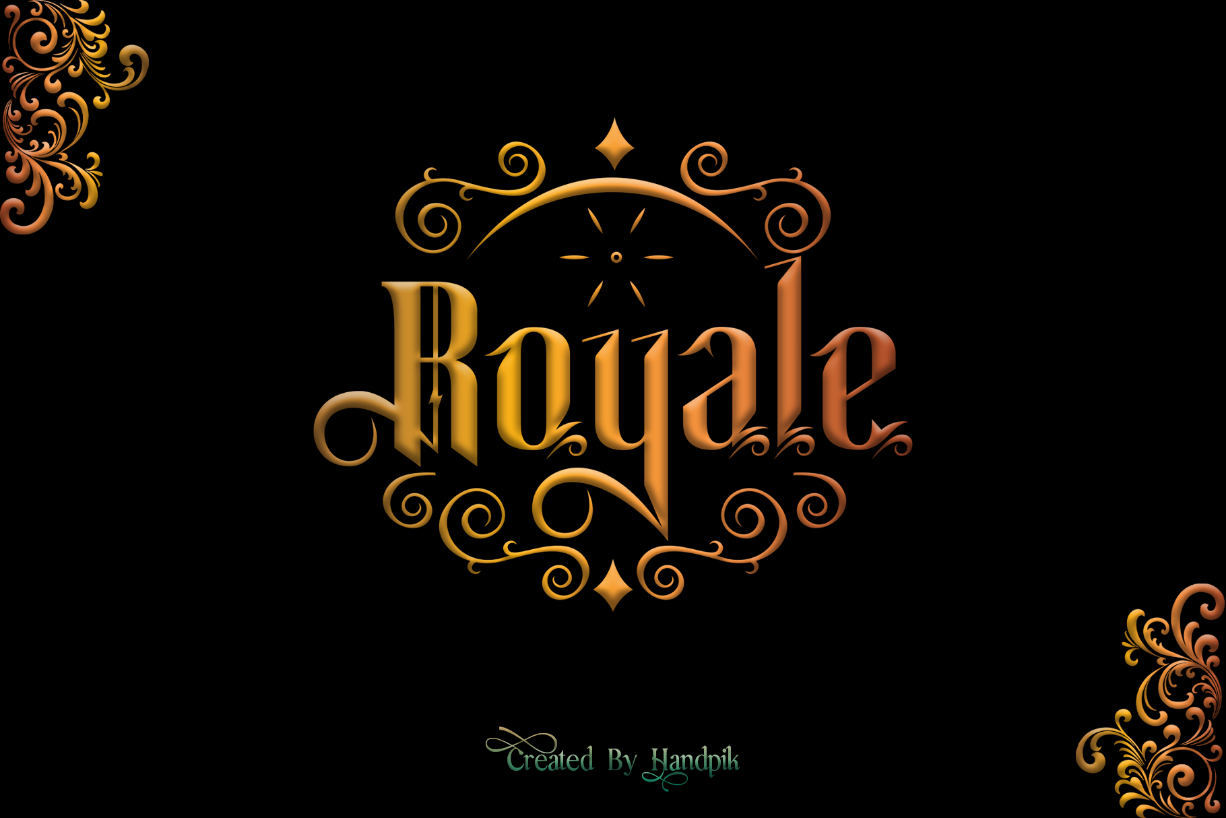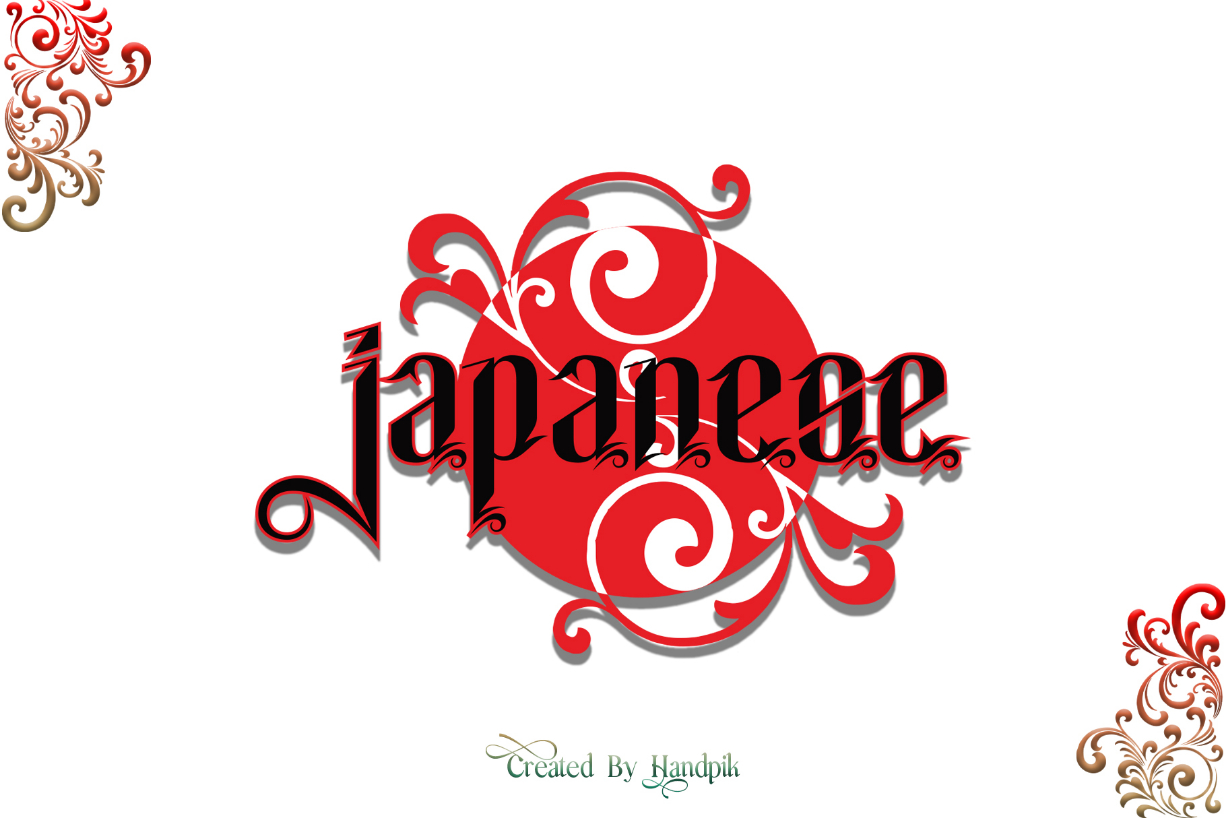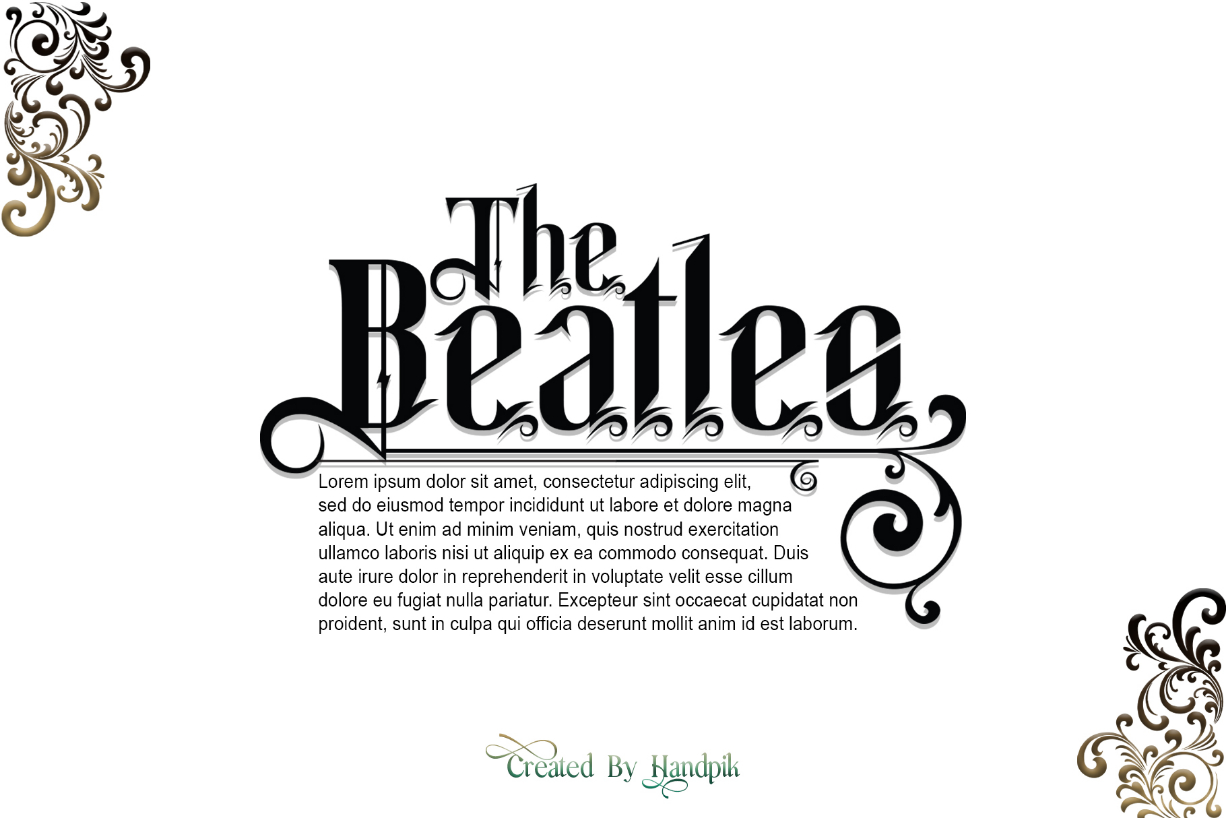
About Tanjiro Font
Tanjiro is a beautiful and classy blackletter font. It has an elegant and modern look that can be used for logos, branding, invitations, stationery, wedding designs, social media posts, and much more!